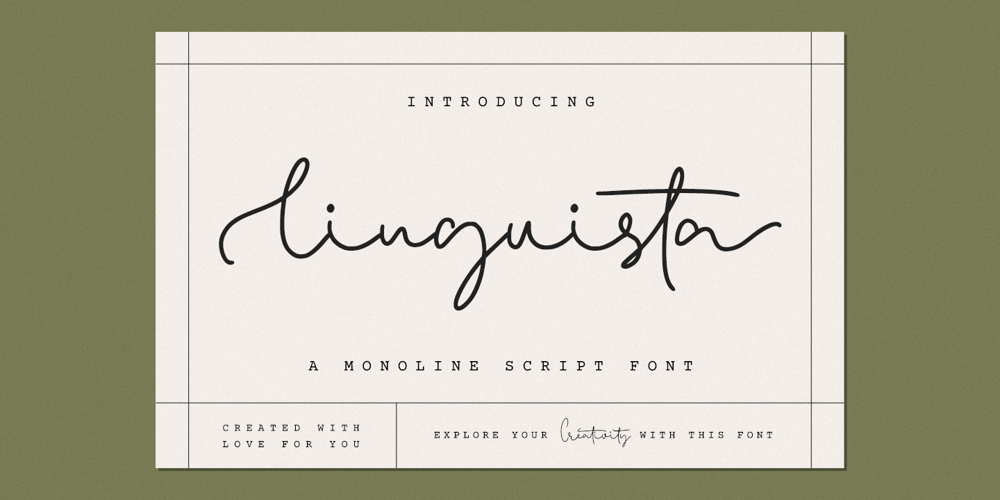
Linguista
Linguista font
Linguista Font Family was designed by Hayinah and published by Rockboys Studio. Linguista contains 1 styles and family package options. Linguista is a gorgeous monoline script, full of personality and curves. It features a natural flow that makes it perfect for any project that requires a handwritten feel.